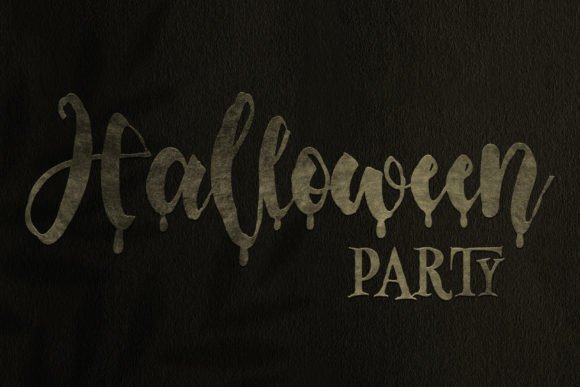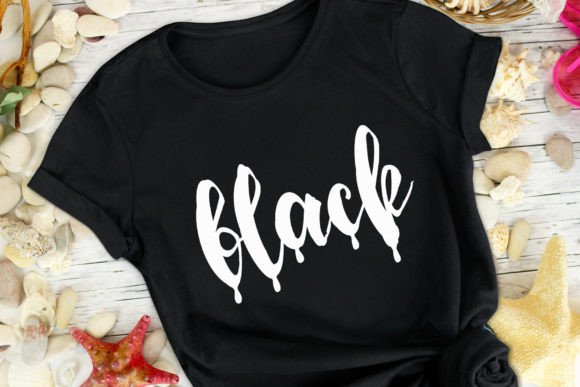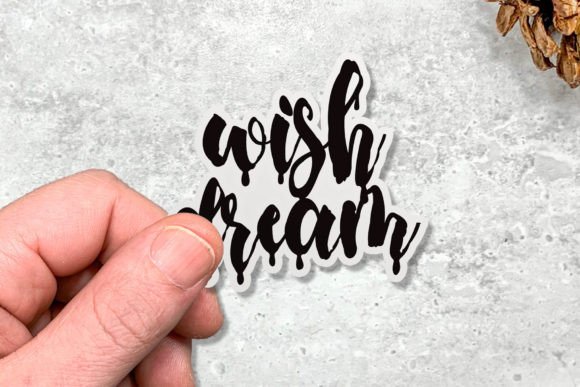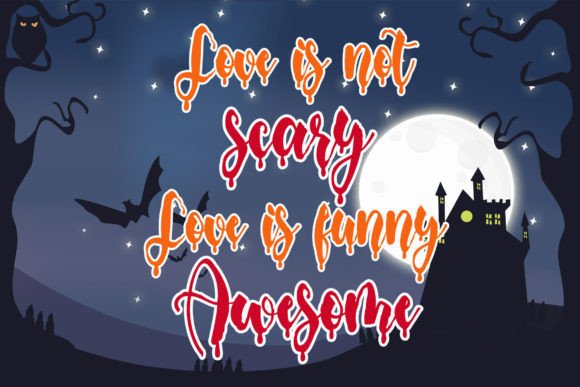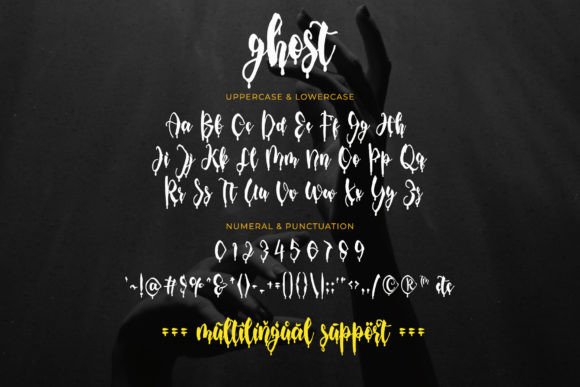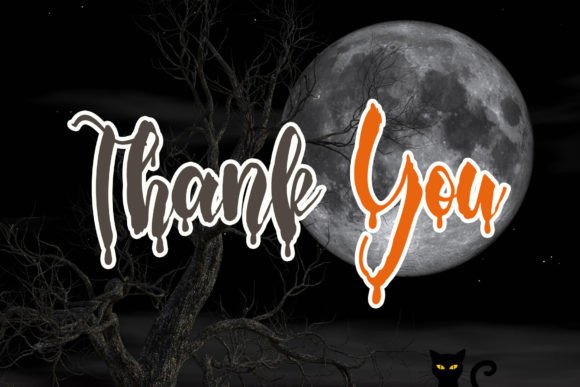
Unleash the Spooky Vibes with Ghost Font: The Ultimate Handwritten Script for Designers and Crafters
Are you looking for a font that can add a spooky touch to your designs? Look no further than Ghost Font, a bouncy handwritten script that’s perfect for Halloween, t-shirt designs, stickers, crafting, sublimation, and more. In this article, we’ll dive into the world of Ghost Font, exploring its features, uses, and benefits for designers and crafters.
What is Ghost Font?
Ghost Font is a simple, horror-inspired, cursive script that’s designed to bring a touch of spookiness to your designs. With its bouncy and playful style, this font is perfect for adding a whimsical touch to your projects. Whether you’re creating Halloween-themed designs, t-shirt graphics, or stickers, Ghost Font is the perfect choice.
Key Features of Ghost Font
- Handwritten script: Ghost Font is a handwritten script that’s designed to look like it’s been written with a marker or a pen. This gives it a personal and playful touch that’s perfect for a wide range of designs.
- Spooky vibes: As its name suggests, Ghost Font has a spooky vibe that’s perfect for Halloween-themed designs, horror-inspired graphics, and more.
- Simple and easy to read: Despite its playful style, Ghost Font is simple and easy to read, making it perfect for use in a wide range of designs, from t-shirts to stickers.
- Cursive style: Ghost Font is a cursive script that’s designed to flow smoothly, making it perfect for use in designs where you want to create a sense of movement and fluidity.
Uses for Ghost Font
Ghost Font is a versatile script that can be used in a wide range of designs, including:
- Halloween designs: Ghost Font is perfect for creating spooky Halloween designs, from party invitations to decorations.
- T-shirt designs: Add a spooky touch to your t-shirt designs with Ghost Font, perfect for horror-themed tees or Halloween-themed apparel.
- Stickers: Use Ghost Font to create spooky stickers that are perfect for laptops, water bottles, or any other surface.
- Crafting: Ghost Font is perfect for use in crafting projects, from scrapbooking to card making.
- Sublimation: Use Ghost Font to create spooky sublimation designs for t-shirts, mugs, and more.
Benefits of Using Ghost Font
So why choose Ghost Font for your designs? Here are just a few benefits:
- Adds a spooky touch: Ghost Font is designed to add a spooky touch to your designs, making it perfect for Halloween-themed projects or horror-inspired graphics.
- Easy to use: Ghost Font is simple and easy to use, making it perfect for designers and crafters of all skill levels.
- Versatile: Ghost Font can be used in a wide range of designs, from t-shirts to stickers, crafting projects, and more.
- Unique style: Ghost Font has a unique style that’s sure to stand out in a crowd, making it perfect for designers who want to create something truly special.
Tips for Using Ghost Font
Here are a few tips for getting the most out of Ghost Font:
- Experiment with different colors: Ghost Font looks great in a wide range of colors, from bright and bold to dark and spooky.
- Pair with other fonts: Try pairing Ghost Font with other fonts to create a unique and interesting look.
- Use in combination with graphics: Ghost Font looks great when used in combination with spooky graphics, such as bats, ghosts, or jack-o-lanterns.
In conclusion, Ghost Font is a versatile and easy-to-use script that’s perfect for designers and crafters who want to add a spooky touch to their designs. With its bouncy handwritten style, spooky vibes, and simple, easy-to-read design, Ghost Font is the perfect choice for a wide range of projects, from Halloween designs to t-shirt graphics and more.